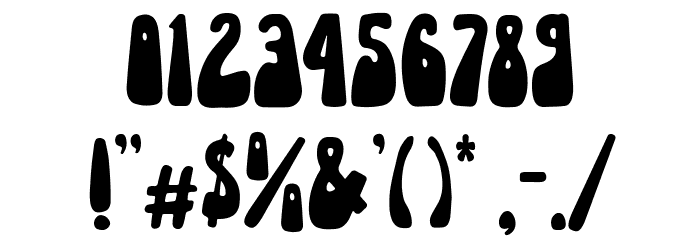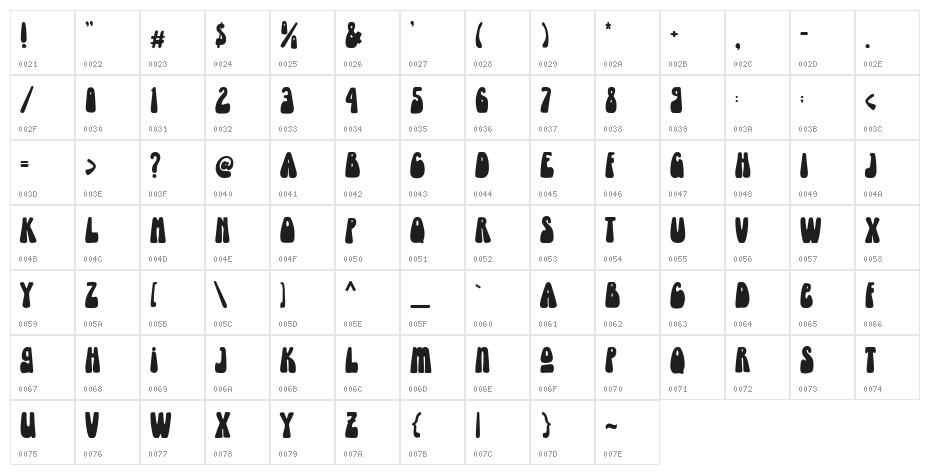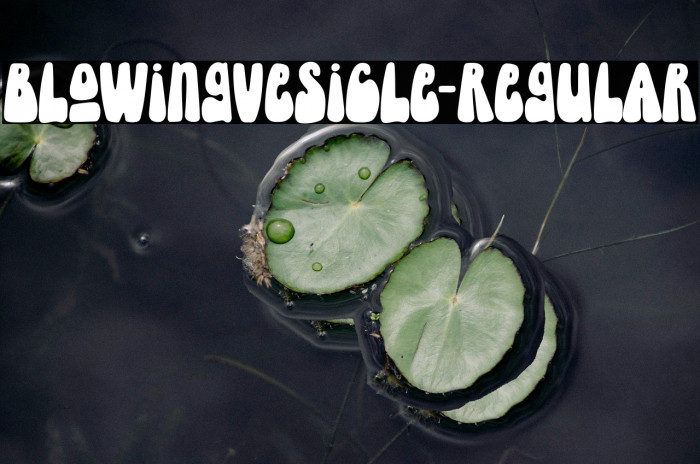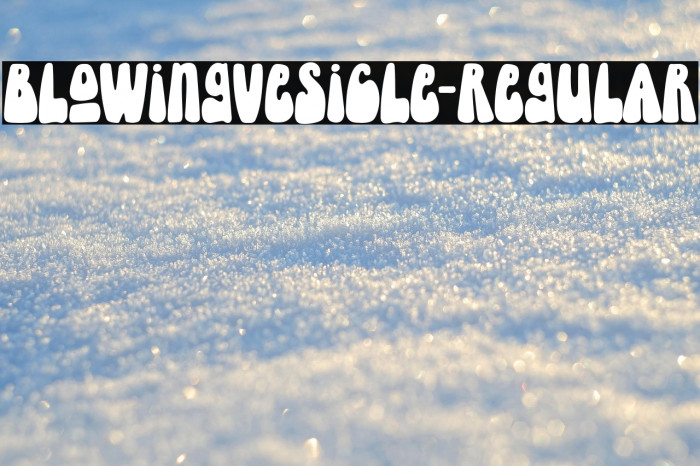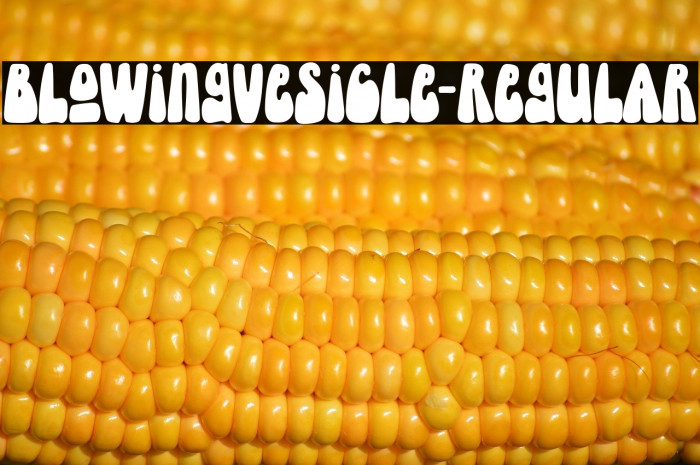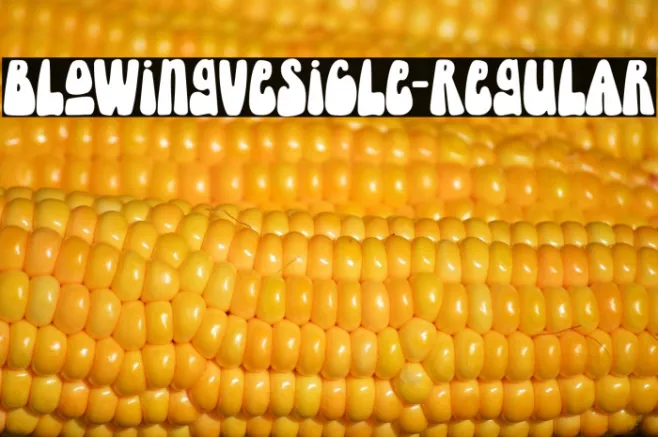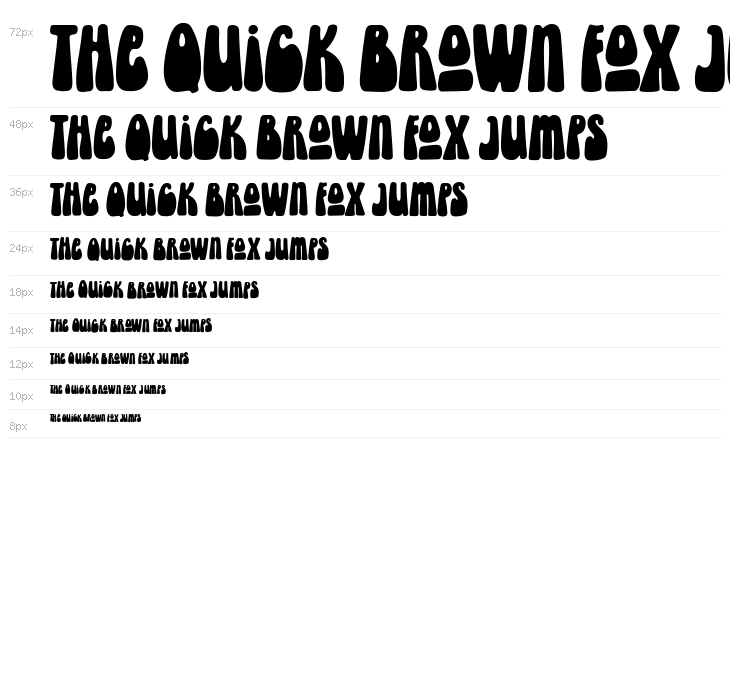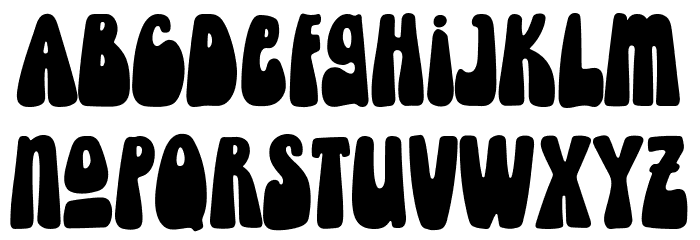
BlowingVesicle-Regular Font
BlowingVesicle-Regular Description
This font features a bold and playful design with a distinctly rounded and bulbous appearance. The characters are heavily weighted, giving them a strong presence on the page. Each letter is uniquely shaped with exaggerated curves and a slightly irregular form, contributing to a whimsical and fun aesthetic. The numbers and special characters follow the same style, maintaining consistency across the font. This design is eye-catching and ideal for projects that require a touch of creativity and boldness.
| Proposed Projects | Ideal for children's books, playful branding, posters, and creative advertisements. |